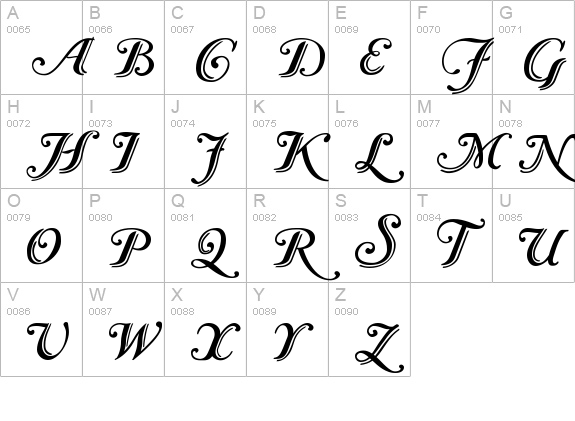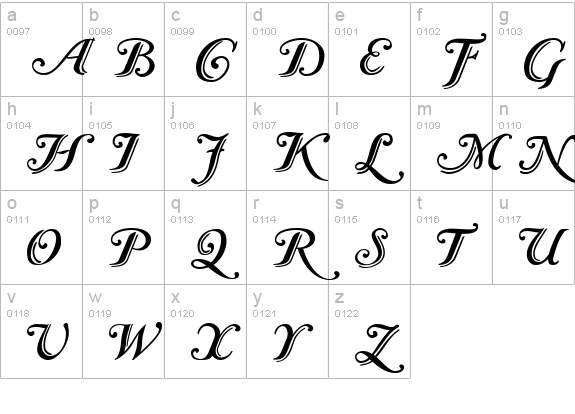
Caslon Calligraphic Initials Font Details
Caslon Calligraphic Initials is a stunning and elegant font that exudes sophistication and class. This font features intricate calligraphic details that make it perfect for adding a touch of luxury to any project. Its delicate strokes and flourishes create a sense of timeless beauty that is sure to captivate the viewer. The Caslon Calligraphic Initials font is ideal for use in invitations, wedding stationery, and other special occasions where a touch of elegance is desired. Its classic design and refined style make it a versatile choice for a wide range of design projects. Best of all, Caslon Calligraphic Initials is available for free download at FontsMarket.com. This means you can easily add this exquisite font to your collection without any cost. Don't miss out on the opportunity to enhance your designs with the beauty of Caslon Calligraphic Initials. Download it today and elevate your projects to a new level of sophistication and charm.